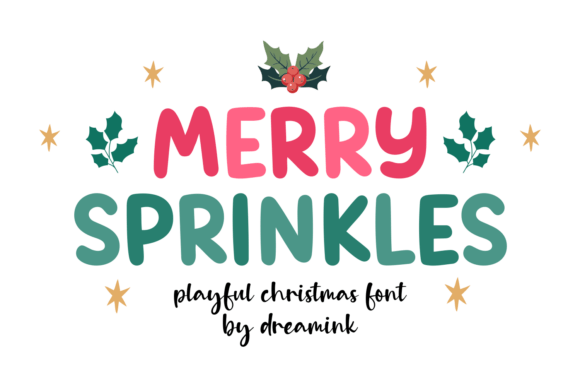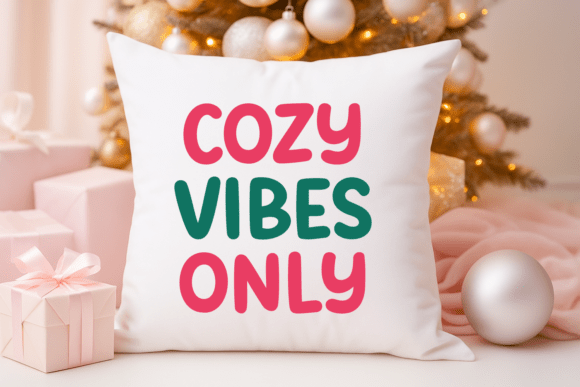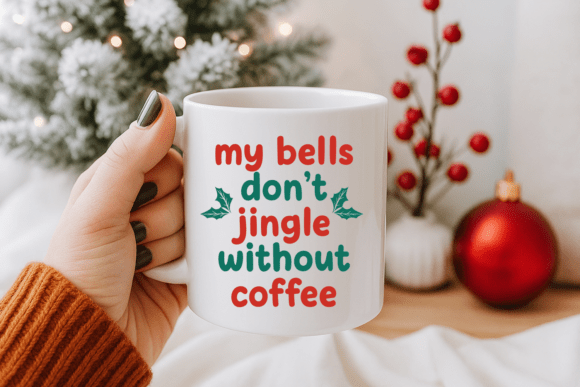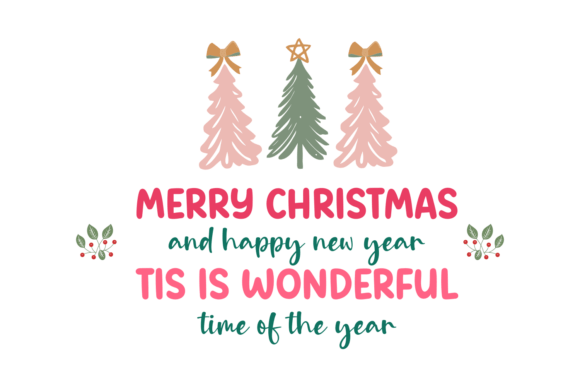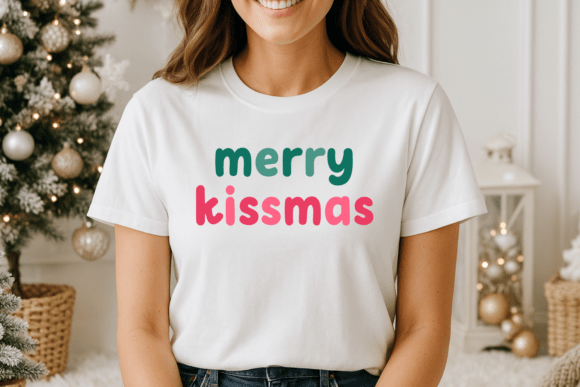
Merry Sprinkles Font
Introduce festive glee to your design creations with Merry Sprinkles, an endearing and merry Christmas font! Its plump, bold characters filled with heartwarming tone make it an ideal pick for Christmas postcards, children’s projects, invites, banners, apparel, and holiday ornaments. Experience the magnetic allure of your text blooming with the fun-filled charm of Merry Sprinkles – your ultimate selection for all seasonal sensations!